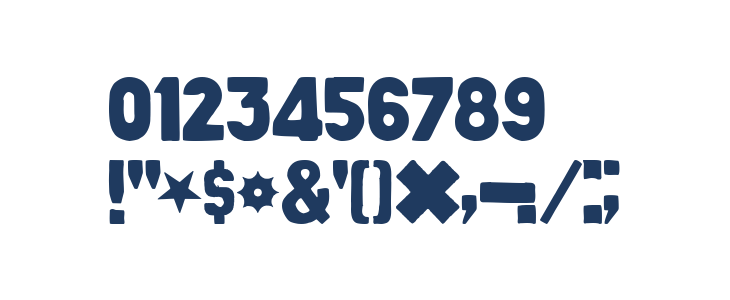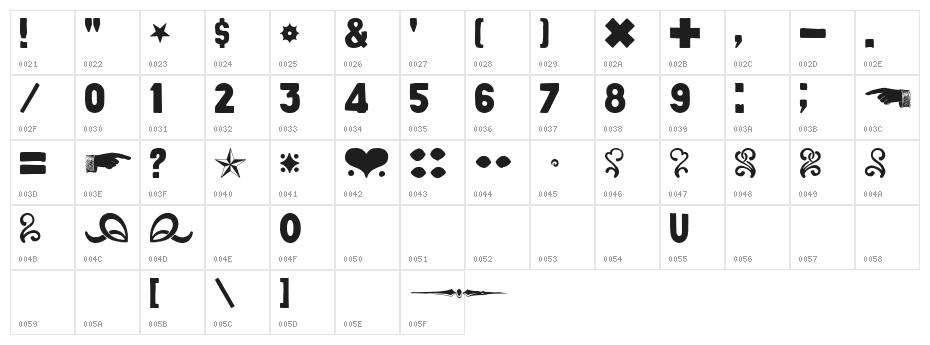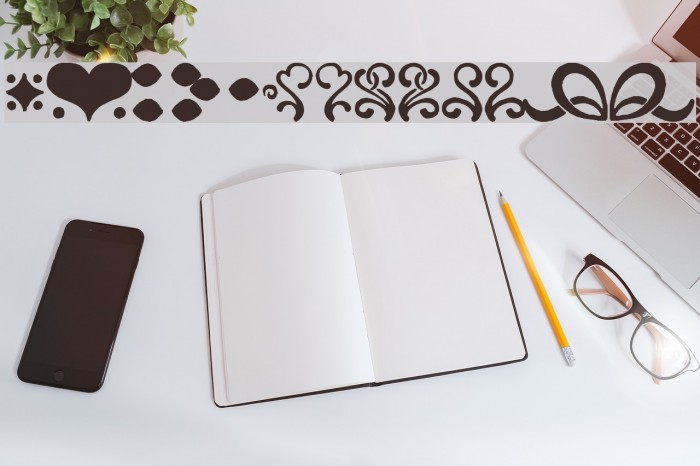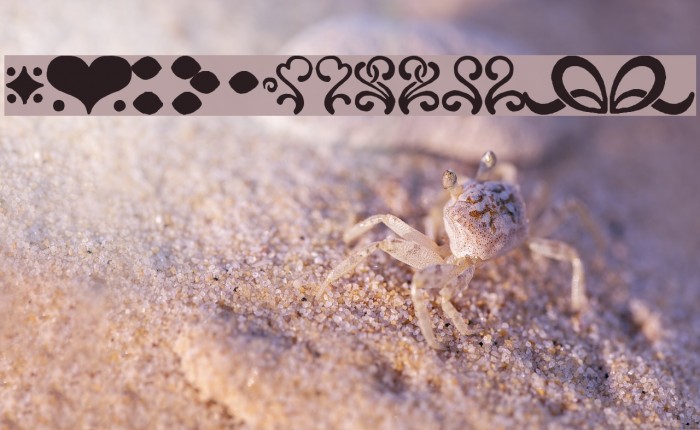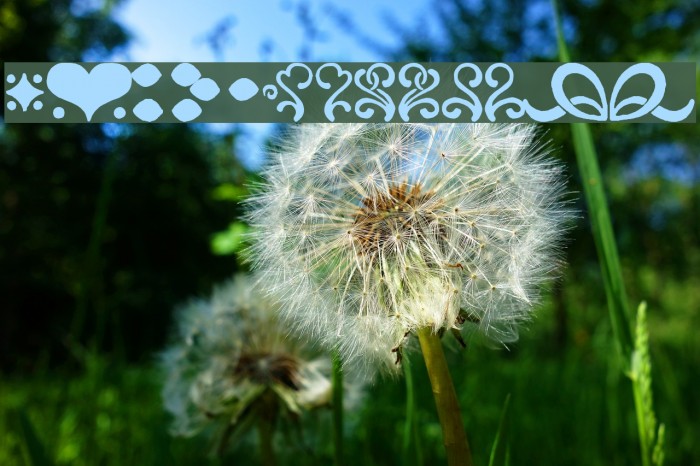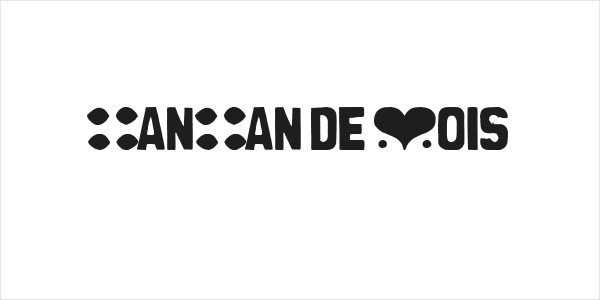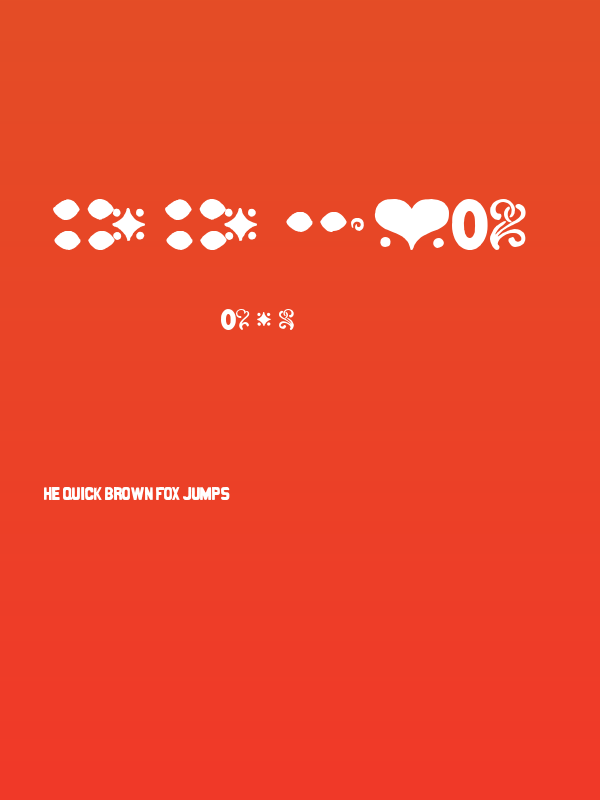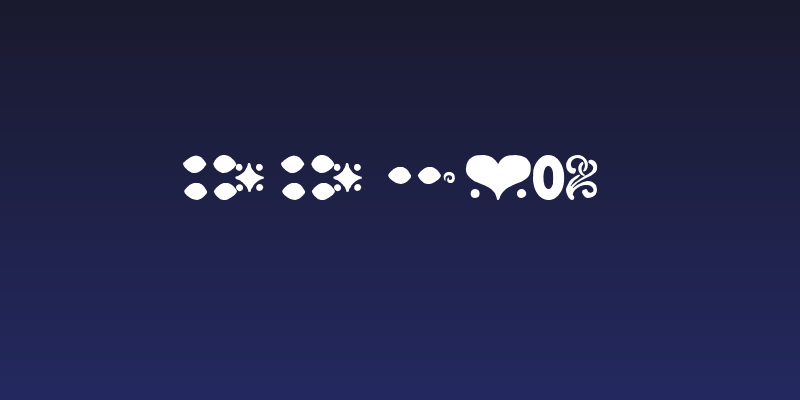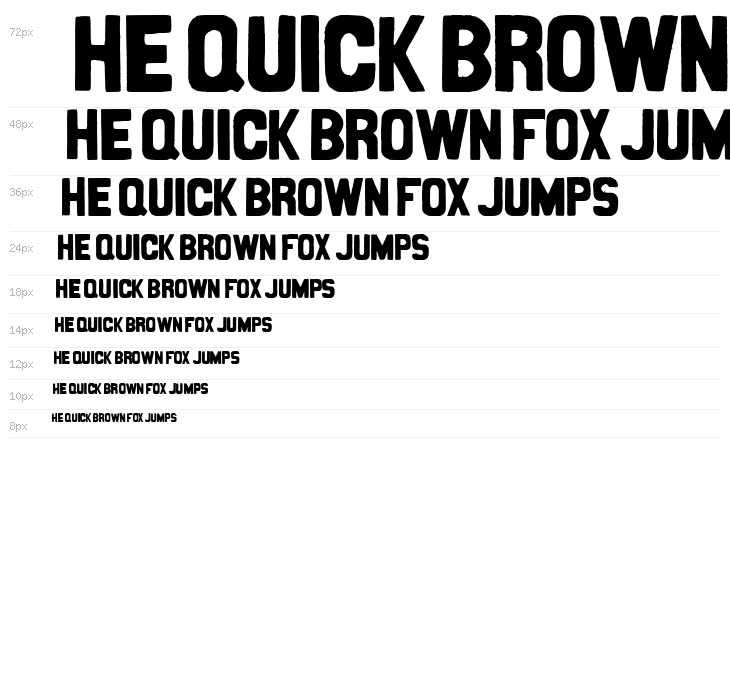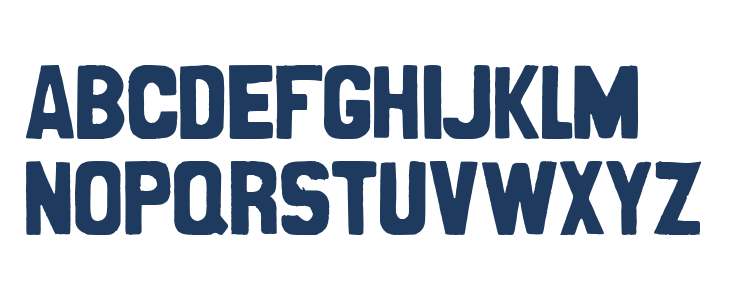
CanCan de Bois Font
CanCan de Bois Description
This bold and impactful font features thick, blocky letters with a strong presence. The uppercase characters are uniform in height, creating a cohesive and powerful look. The numbers and special characters maintain the same boldness, ensuring consistency across all elements. The font's design includes subtle curves and angles, adding a touch of uniqueness while maintaining readability. Its decorative elements, such as the heart and floral motifs, enhance its visual appeal, making it suitable for eye-catching designs. The overall style is robust and assertive, perfect for making a statement.